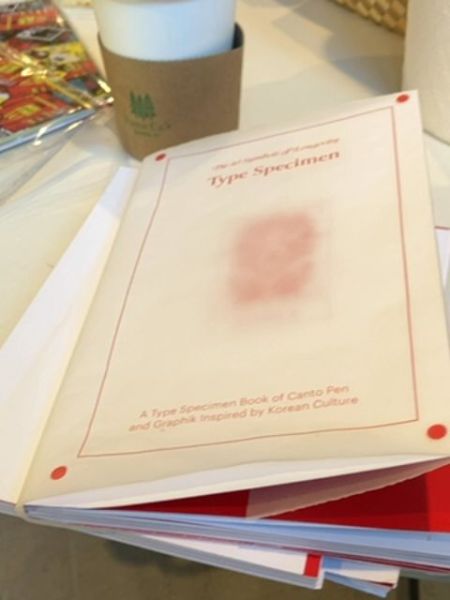
Type Specimen
A type specimen book of Canto Pen and graphics inspired by Korean culture.
The typography on the cover uses a serif font, which conveys a sense of tradition and elegance. The use of italicized text adds a sophisticated touch, while the red color contrasts well with the white background, making the text stand out clearly.
The packaging is minimalist, featuring a white cover with red accents. It has a clean and professional appearance with a subtle, semi-transparent image in the center.
- Showcases typefaces inspired by Korean culture.
- Includes designs by Canto Pen.
- Focuses on graphic design aesthetics.